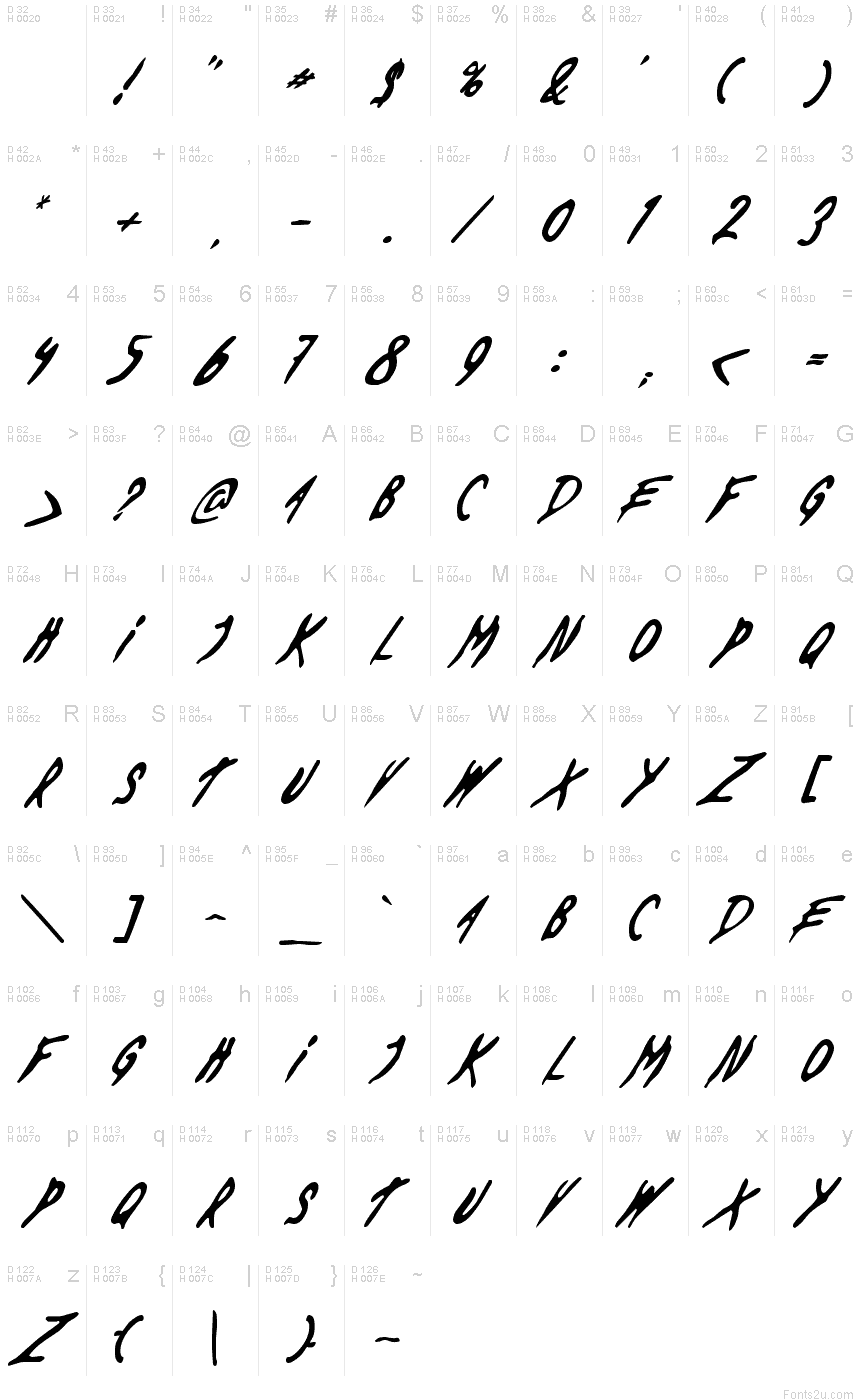
Dead By Dawn US
Dead By Dawn US font by Daniel Goulart Araujo is a free distorted display typeface that feels like it’s been slashed onto the page with a dripping brush. The letters are tall, frantic, and slightly off-kilter, with jagged strokes that look more like ripped fabric than clean curves. It has that gritty, late-night-horror-movie energy—fast, aggressive, and a little unhinged—so even a short word looks like a shouted warning.
Using Dead By Dawn US, you can instantly push horror posters, Halloween flyers, slasher film titles, game logos, and band merch into full-on scream territory. This free font also works beautifully for edgy covers, social graphics, or any project that needs a streak of danger. Keep it big and bold, and pair it with a quiet, neutral sans serif for body text to let the wild script take center stage.